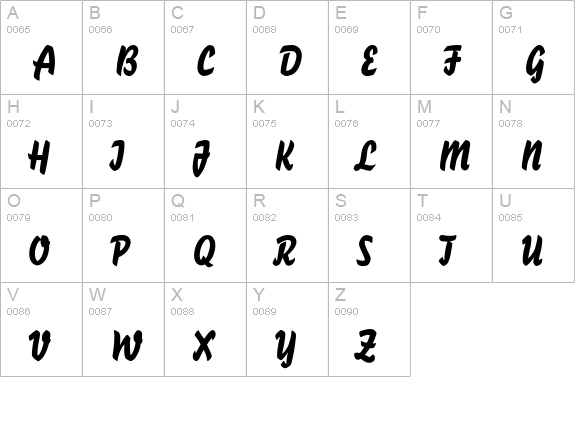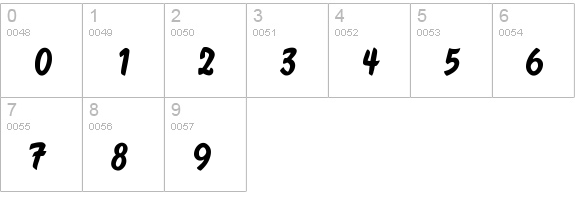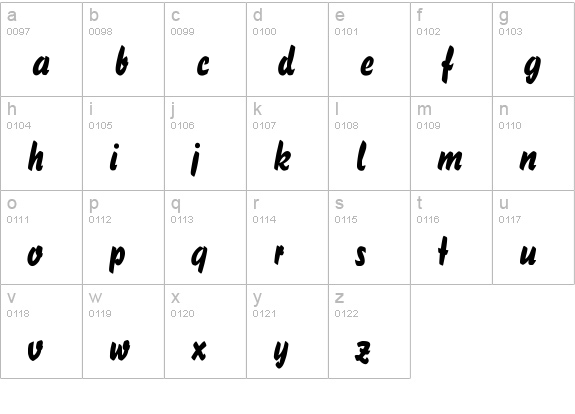
BassScriptOpti Font Details
BassScriptOpti is a stunning and elegant font that exudes sophistication and style. Its sleek and modern design makes it perfect for a wide range of projects, from branding to invitations to editorial design. The smooth curves and flowing lines of BassScriptOpti give it a timeless appeal that will elevate any design it is used in. One of the best things about BassScriptOpti is that it is completely free to download. That's right, you can get your hands on this beautiful font at no cost at all from FontsMarket.com. So don't miss out on the opportunity to add this versatile and eye-catching typeface to your design arsenal. Download BassScriptOpti today and watch your projects come to life with its unique charm and elegance.